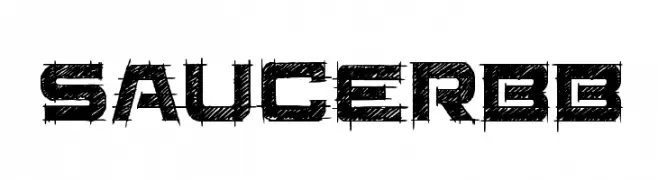
A bold, brush-style font with dynamic, energetic strokes.
A bold, dramatic font with sharp angles and an edgy appearance.
A rugged, hand-drawn font with sharp, angular edges and a distressed look.
A bold, jagged font with an aggressive, brush-like style.
A bold, aggressive font with sharp, angular edges and dynamic style.
A bold, distressed font with a textured, scratch-like appearance.